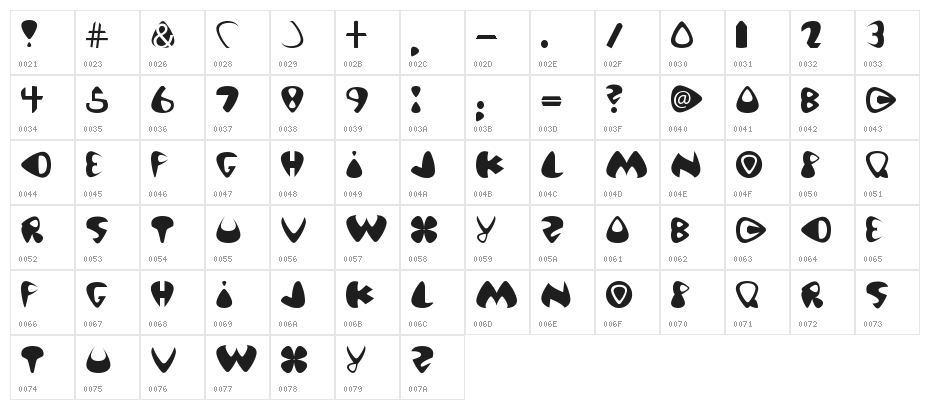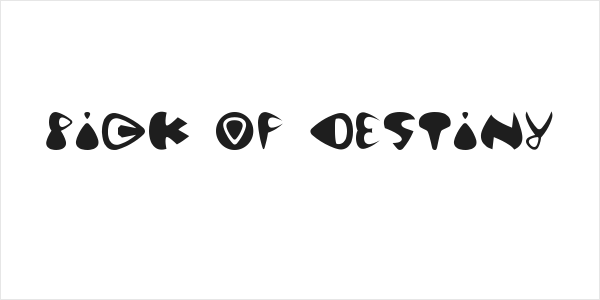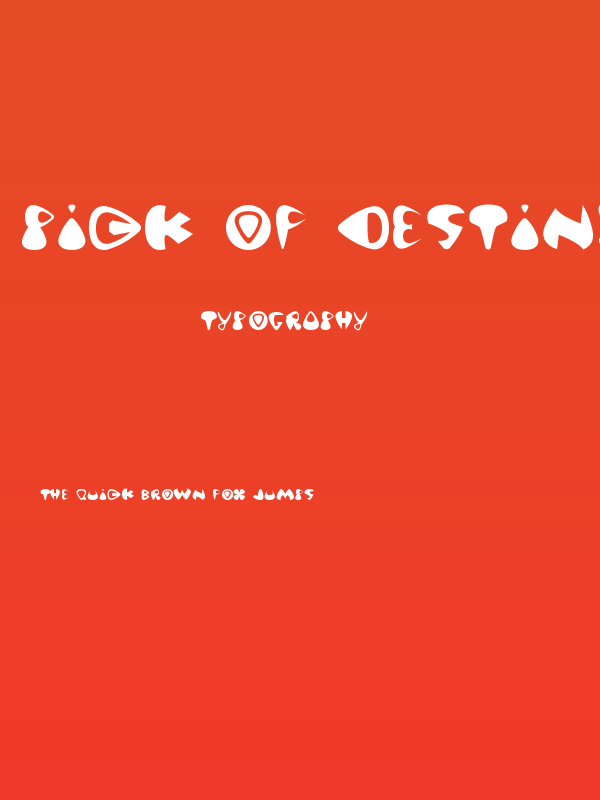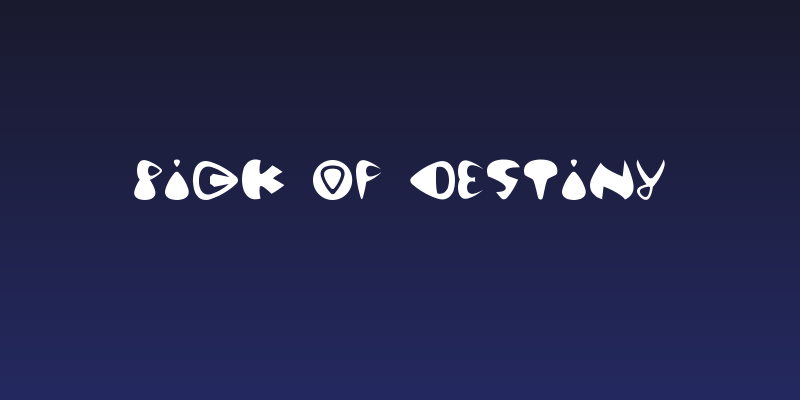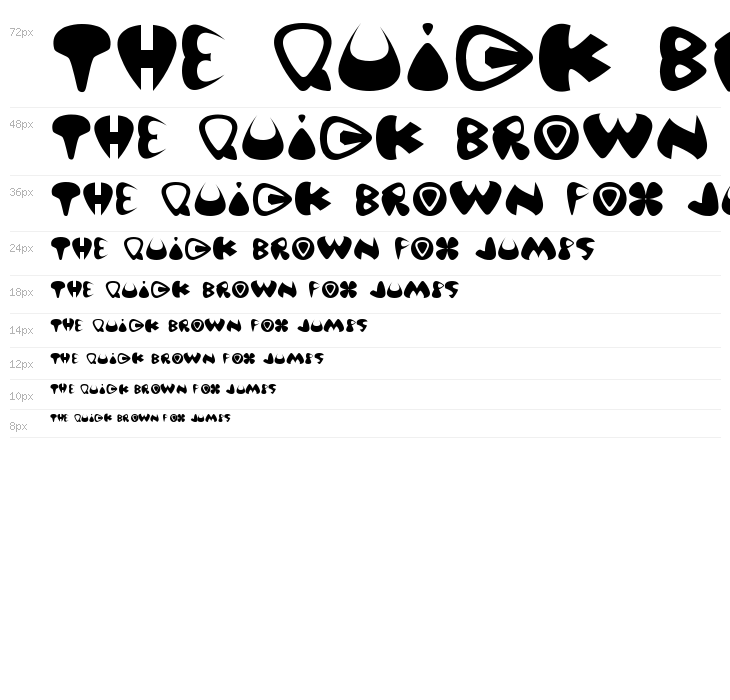
Pick of Destiny Font
This font features a bold and playful design, characterized by its thick, rounded shapes and unique, artistic flair. The letters are highly stylized, with exaggerated curves and angles that give them a whimsical and dynamic appearance. The uppercase and lowercase letters maintain a consistent style, with the uppercase being more prominent and the lowercase slightly more subdued. Numbers and special characters follow the same design principles, ensuring a cohesive look across all elements. The font's distinctiveness makes it ideal for creative projects that require a fun and eye-catching typeface.
Proposed ProjectsIdeal for posters, album covers, children's books, and branding that requires a fun and dynamic look.